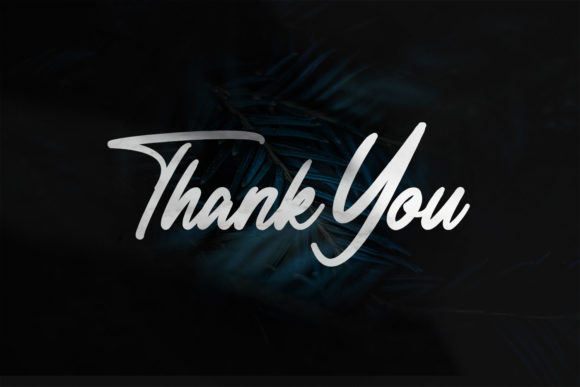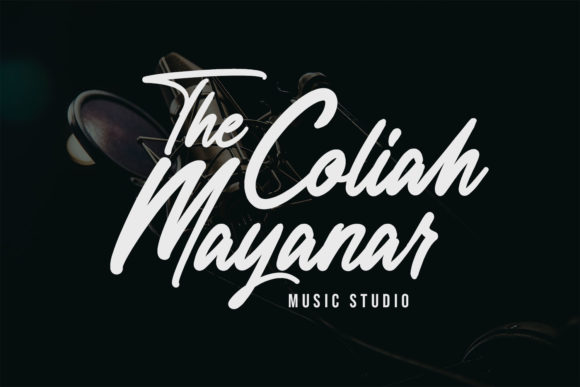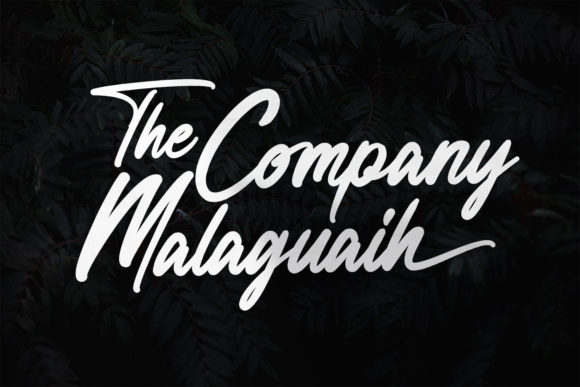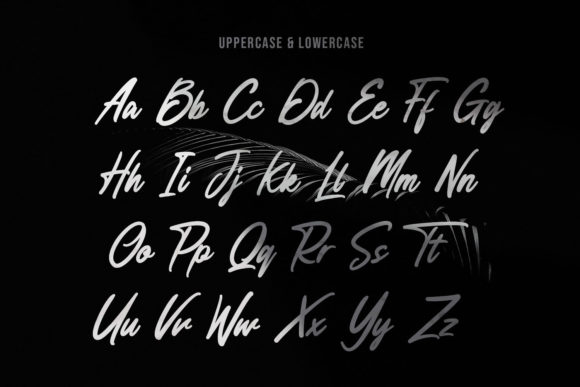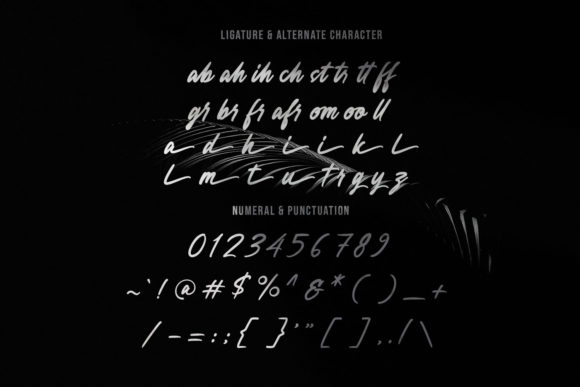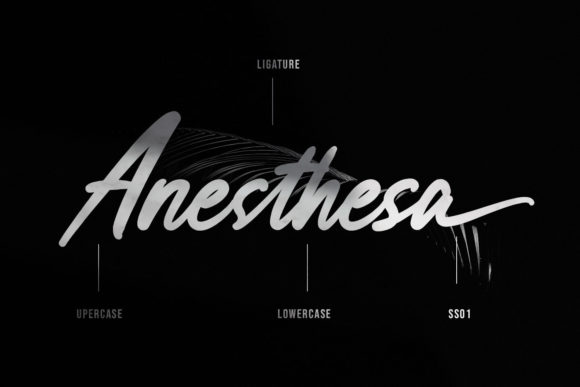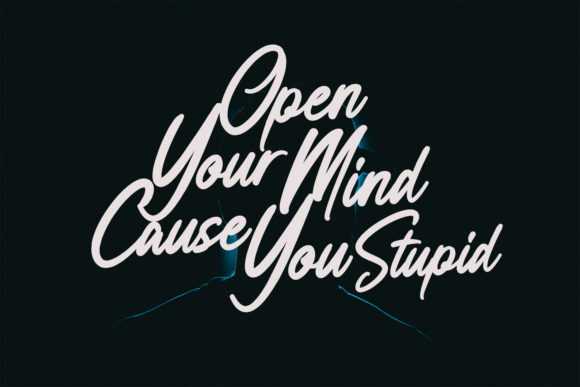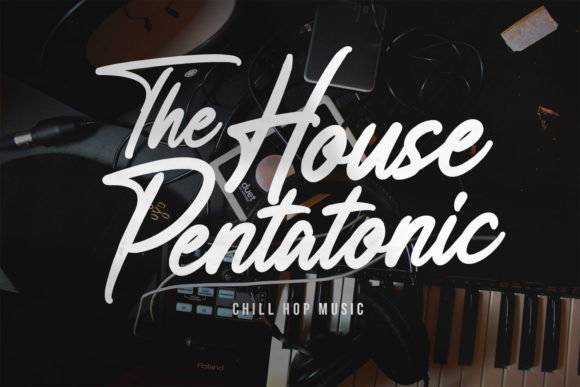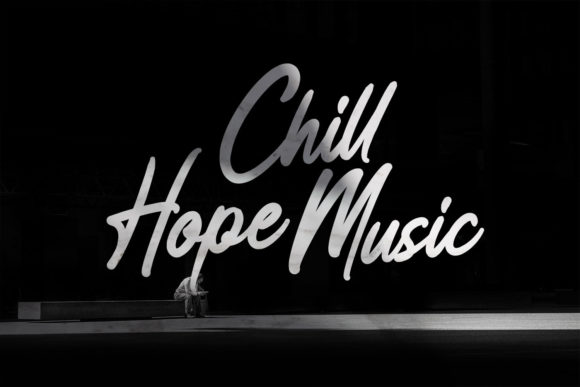
Anesthesa Font
About Anesthesa Font
Anesthesa is a cursive and beautiful, paint brushed script font. It looks stunning on wedding invitations, thank you cards, quotes, greeting cards, logos, business cards and every other design which needs a customized touch.